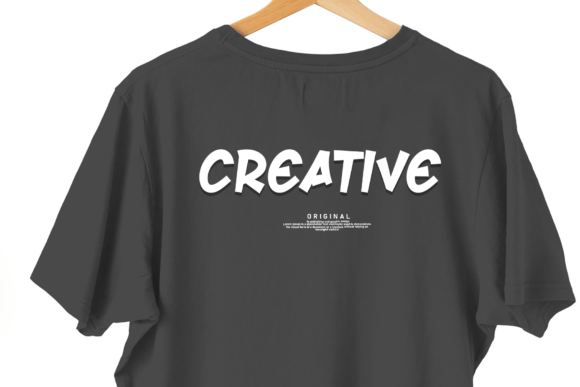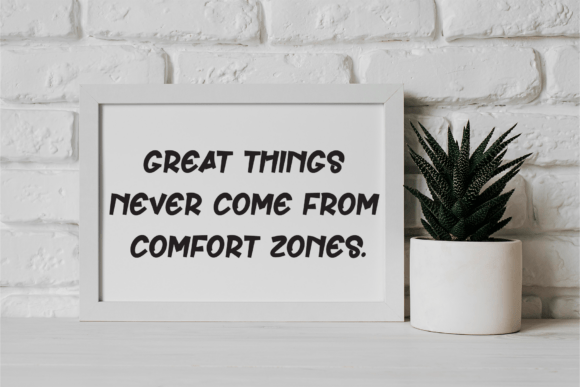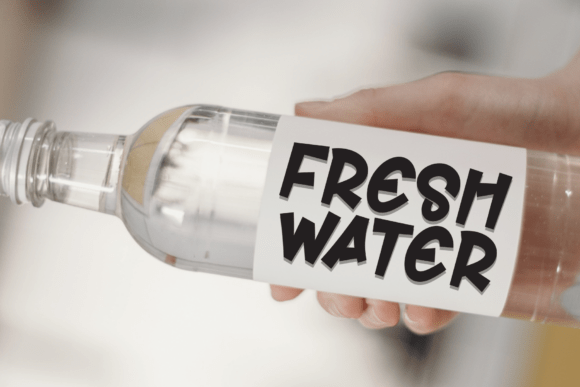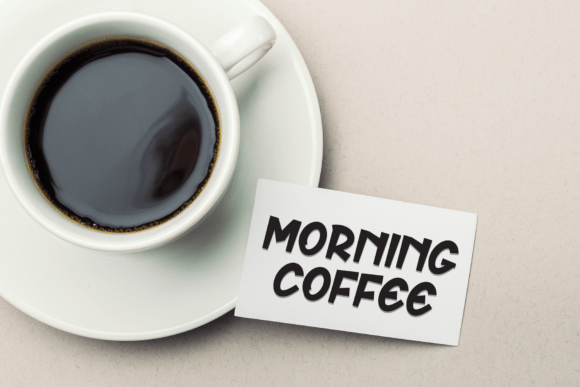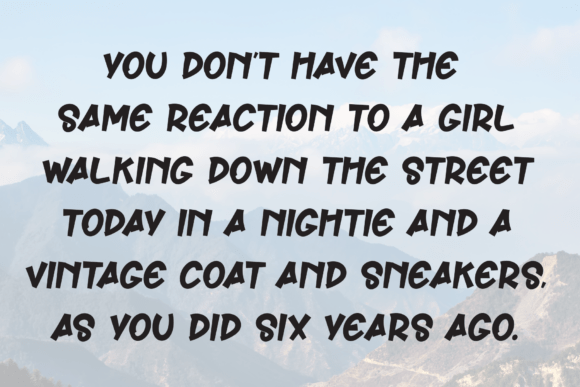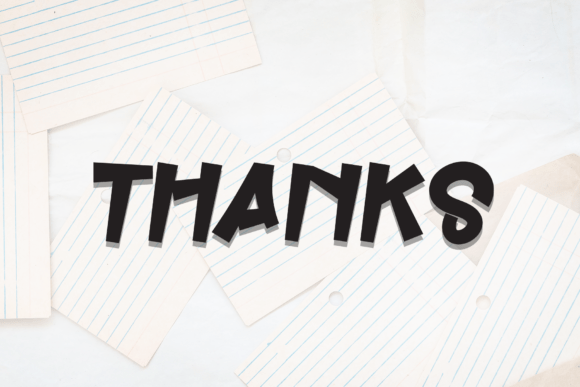
Introduction to Retro Notes Font Font
Fonts play a crucial role in design, and the Retro Notes Font font is a typeface that brings both character and versatility to any project. Whether you’re working on a branding project, a website, or a print design, the Retro Notes Font font offers a unique style that can elevate your work.
Introducing the charming, handwritten display font that perfectly marries sweetness and friendliness.
This delightful font infuses a playful touch into any design, making it perfect for penning wedding invites, greeting cards, or other creative projects that require an element of fun Crafted with love and optimism, this eye-catching font is your go-to tool for making memorable impressions.
Key Features of Retro Notes Font Font
Why Choose Retro Notes Font Font?
The Retro Notes Font font is more than just a typeface – it’s a design tool that helps you communicate your message with style and clarity. Its unique character set and versatile design make it suitable for a wide range of applications, from elegant invitations to bold headlines.
With its carefully crafted letterforms and balanced proportions, the Retro Notes Font font ensures readability and visual appeal across all mediums.
What makes Retro Notes Font font special?
The Retro Notes Font font stands out with its unique design, exceptional readability, and versatility across various design applications.